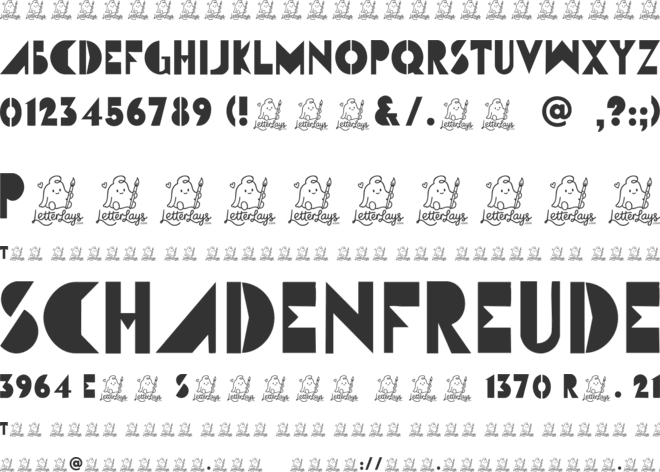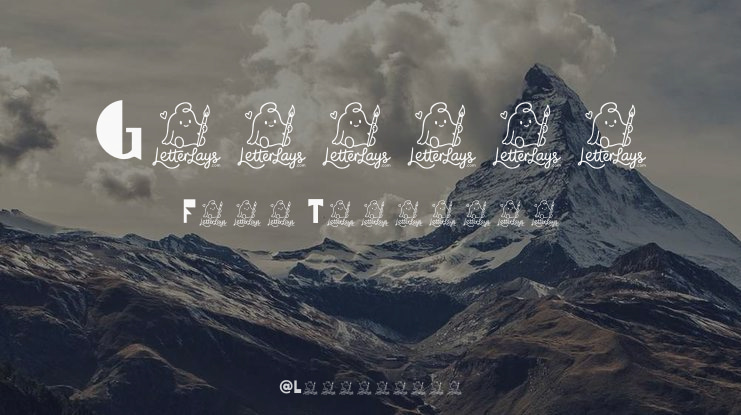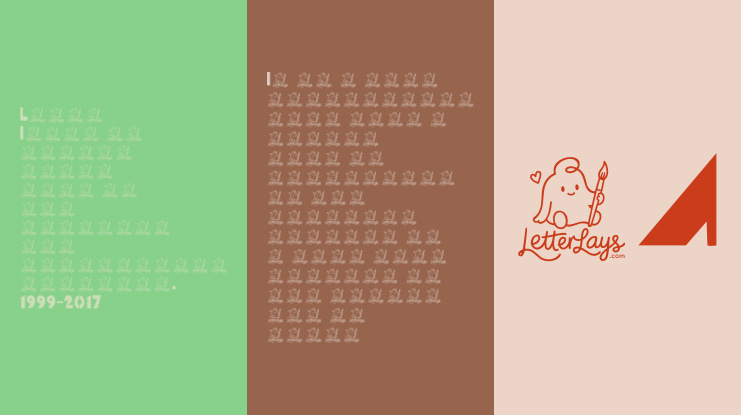
Geomark Free Font
✦ Geomark Free is a limited personal-use demo of the full Geomark typeface by Letterlays. Create modern branding, architecture posters, tech products, geometric logos, and expressive display graphics with Geomark.
🎨 Style notes: ✨ Geomark is a bold geometric display font with clean construction shapes, confident modular rhythm, and modern graphic clarity.
🔤 This demo includes uppercase Latin letters, numerals and selected basic punctuation for personal mockups, layout tests and concept work.